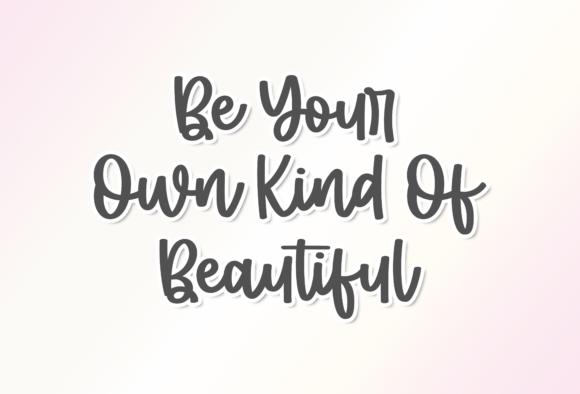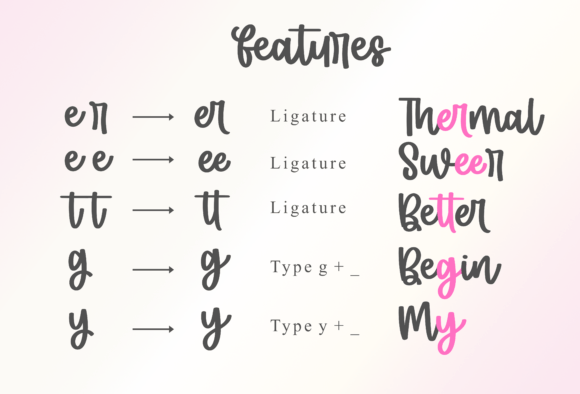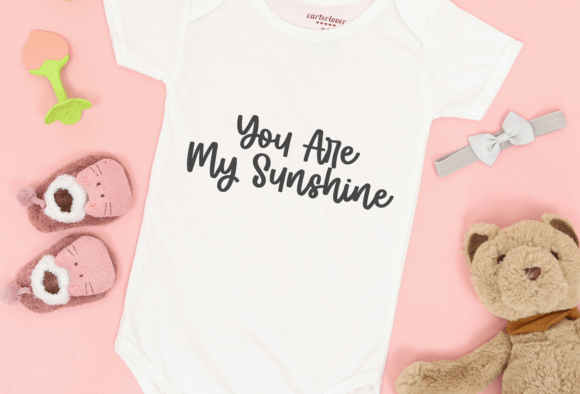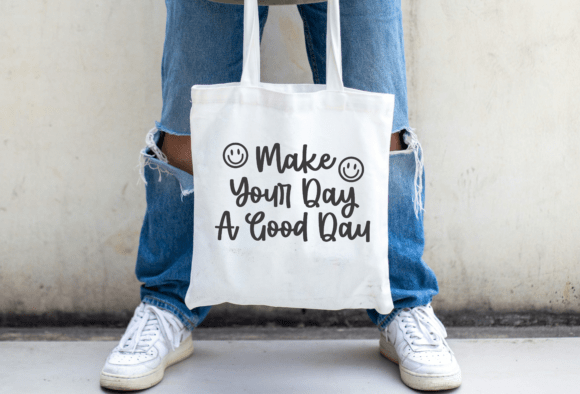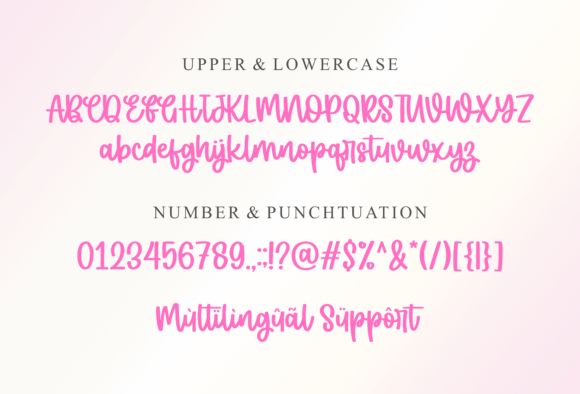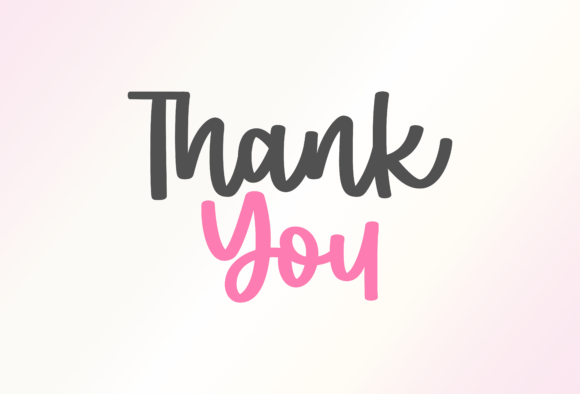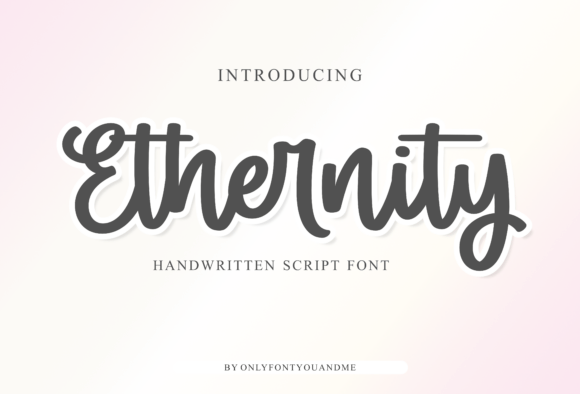
Discover the Elegance of Ethernity Font: A Contemporary Handwritten Script
In the world of typography, few fonts manage to capture the essence of natural cursive writing while exuding sophistication and elegance. Ethernity Font is one such marvel, a delightfully contemporary handwritten script that has been turning heads with its unforced charm and refined appeal. In this article, we’ll dive into the unique features of Ethernity, exploring how it can elevate your branding, invitations, and creative projects to new heights.
The Essence of Ethernity Font
Ethernity Font is a masterclass in elegant script design. Its distinct, masterful strokes are both bold and refined, effortlessly blending to create a unified, inviting aesthetic. The font’s bounce is thoughtfully subtle, adding a touch of playfulness to its overall demeanor. Each letterform is expertly crafted to work in harmony with the others, creating a fluid, connected feel that is both soothing and sophisticated.
Adapting the Ebb and Flow of Natural Cursive Writing
One of the standout features of Ethernity Font is its ability to mimic the natural flow of cursive writing. The font’s gentle slant and fluid strokes evoke a sense of warmth and personal connection, making it perfect for projects where you want to convey a sense of intimacy and approachability. Whether you’re designing wedding invitations, branding materials, or social media graphics, Ethernity’s elegant script is sure to leave a lasting impression.
Celebrating Dynamic Interaction: Thick and Thin Strokes
Ethernity Font’s playful use of contrasts is a key element of its captivating visual appeal. The font’s dynamic interaction of thick and thin strokes infuses a charming element of depth to its handwritten appeal, creating a sense of visual interest that draws the viewer in. This thoughtful use of contrast also serves to enhance the font’s readability, making it an excellent choice for projects where you need to communicate a message clearly and effectively.
The Unique White Outline Effect: Boosting Readability and Visual Appeal
One of the most striking features of Ethernity Font is its unique white outline effect, highlighted in the preview. This clever design element serves to boost readability, making the font stand out against busy backgrounds or in situations where you need to grab the viewer’s attention. The white outline effect also adds an extra layer of visual interest to the font, turning heads and setting your project apart from the crowd.
Ethernity Font is a versatile and engaging script that is perfect for designers and crafters looking to add a touch of elegance and sophistication to their projects. Whether you’re working on branding materials, invitations, social media graphics, or craft projects, Ethernity’s refined appeal and fluid strokes are sure to inspire. The font’s adaptability and ease of use make it an excellent choice for a wide range of applications, from digital design to print and crafting.
Indulge in the Elegance of Ethernity Font
In conclusion, Ethernity Font is a true gem in the world of typography. Its unique blend of elegance, sophistication, and playfulness makes it an excellent choice for designers and crafters looking to elevate their projects. With its fluid strokes, subtle bounce, and captivating visual appeal, Ethernity is sure to leave a lasting impression on your audience. So why not indulge in the elegance of Ethernity Font today and discover the difference it can make in your design work?
Key Features of Ethernity Font:
- Contemporary handwritten script
- Unforced elegance and sophistication
- Distinct, masterful strokes
- Fluid, connected strokes
- Thoughtfully subtle bounce
- Expertly crafted letterforms
- Dynamic interaction of thick and thin strokes
- Unique white outline effect